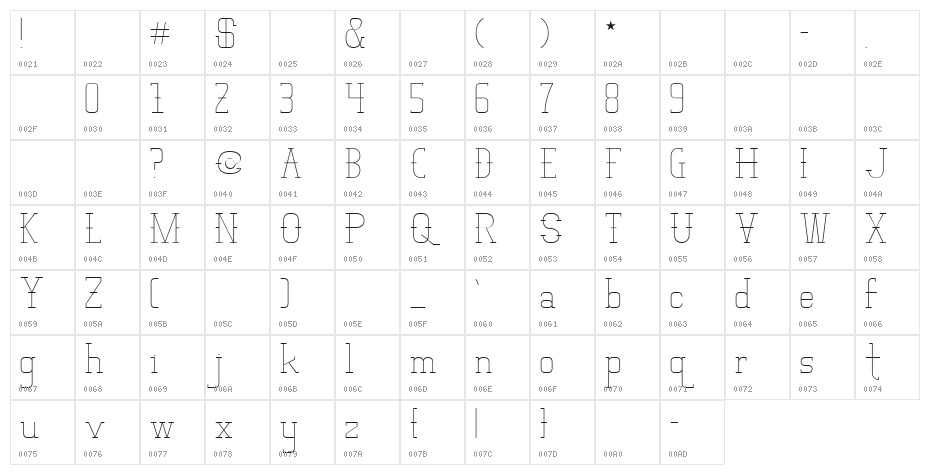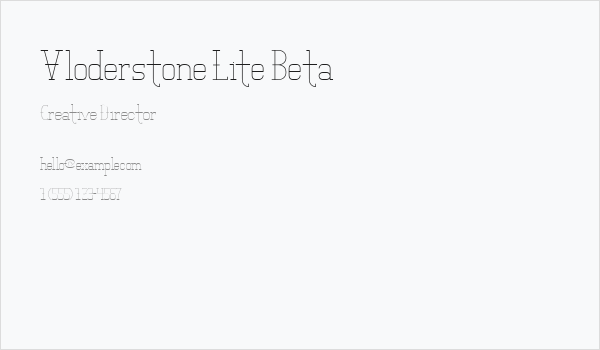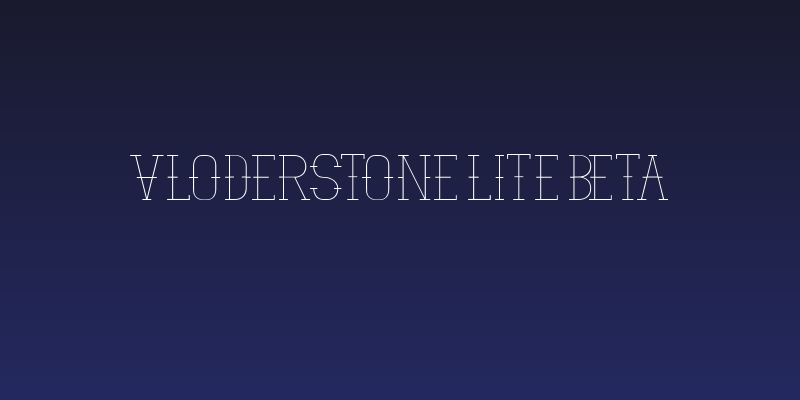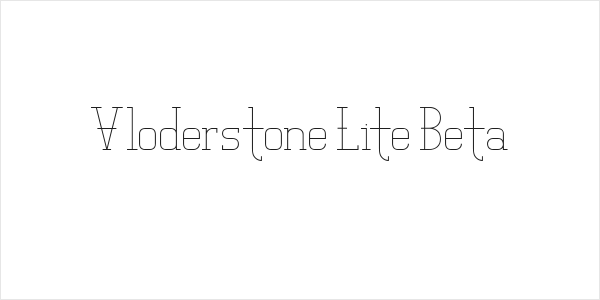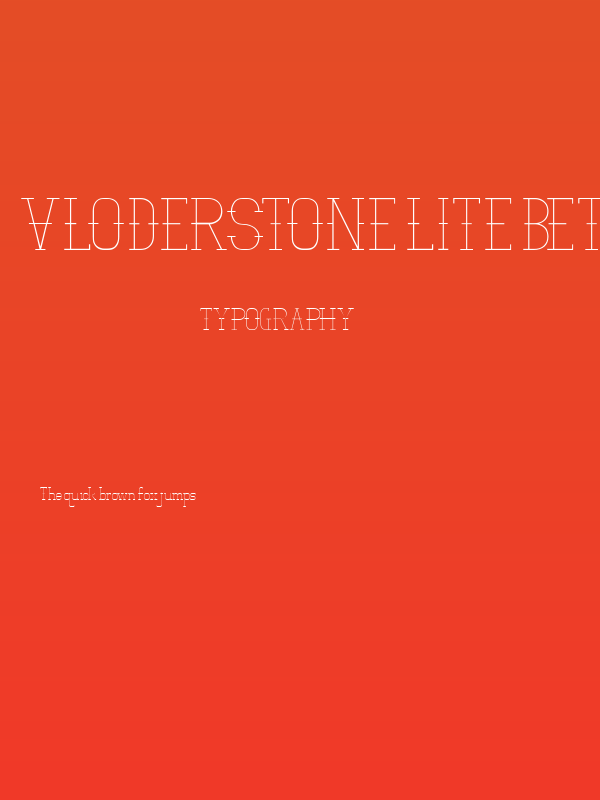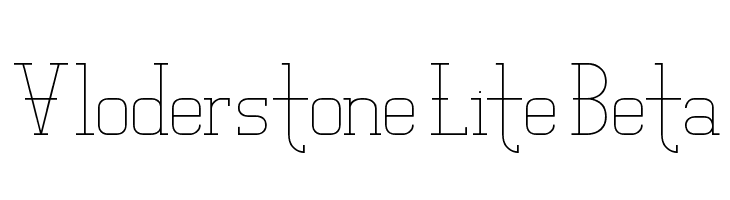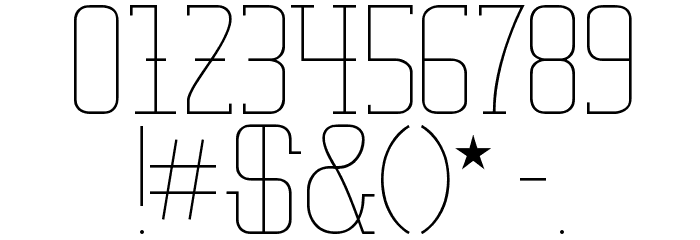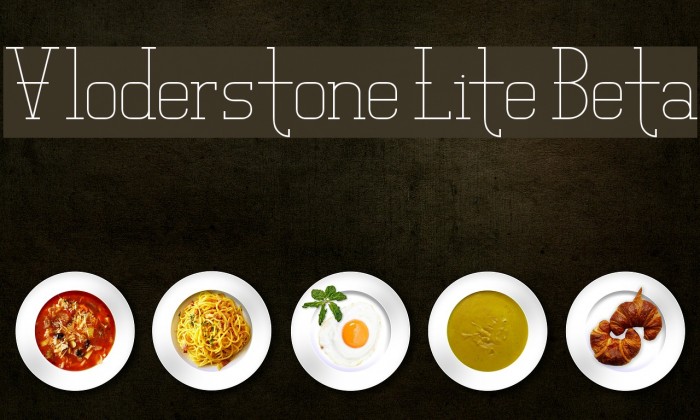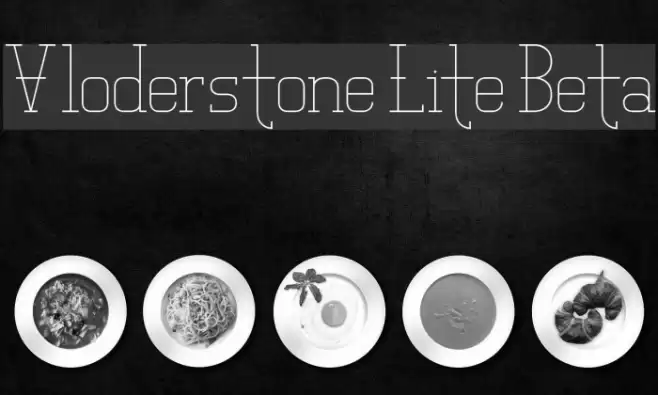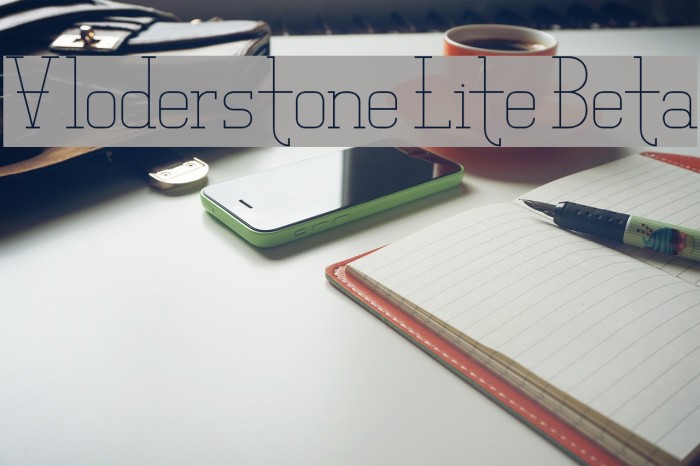
Vloderstone Lite Beta Font
Vloderstone Lite Beta Description
This font features a modern, geometric design with a clean and minimalist aesthetic. The characters are constructed with thin, uniform lines that give it a light and airy feel. The uppercase letters are tall and narrow, while the lowercase letters maintain a consistent height, creating a harmonious balance. The numerals and special characters follow the same design principles, ensuring a cohesive look across all elements. The font's simplicity and elegance make it versatile for various design applications.
| Use Case | Headlines, Logos, Editorials |
| Proposed Projects | Ideal for modern branding, minimalist posters, tech-related designs, and editorial layouts. |